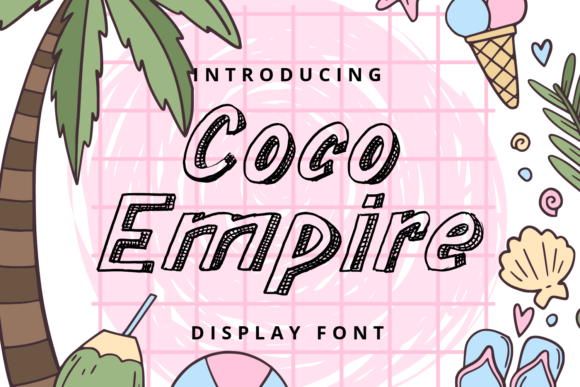
Unleash Your Creativity with Coco Empire Font
Enter the Coco Empire Font, a casual and cool 3D display font that’s about to become your new best friend. Its natural and unique style makes it incredibly fitting to a large pool of designs, from bold headlines to creative typography. The Coco Empire Font is more than just a font – it’s a key to unlocking endless design possibilities.
- Font Family: Coco Empire Font is a unique and elegant sans-serif font family designed for various applications.
- Unique Characteristics: Features a distinctive blend of modern and vintage elements, with a touch of elegance and sophistication.
Coco Empire Font Review
I recently had the chance to work with the Coco Empire Font, and I must say it’s a unique and stylish addition to any design project. ✨ One of the things that stands out about this font is its versatility – it works well in both bold and playful contexts, making it perfect for a wide range of applications.
Some of the key features that I appreciate about the Coco Empire Font include:
- A wide range of weights and styles, allowing for endless customization options
- Excellent legibility, even at smaller font sizes
- A unique, hand-crafted feel that adds a touch of personality to any design
However, I do have a few concerns about the Coco Empire Font. ⚠️ One of the main limitations is that it can be a bit difficult to read in certain situations – for example, when used in long blocks of text or at very small font sizes. Additionally, the font may not be the best choice for formal or traditional designs, as its playful vibe may not fit with the tone.
Overall, I think the Coco Empire Font is a solid choice for designers who want to add a bit of whimsy and personality to their work. While it may have some limitations, its unique style and versatility make it a valuable addition to any design toolkit.
The Coco Empire font is ideal for creative projects, such as:
- Brand logos and identities
- Graphic designs and illustrations
- Invitations and event materials
For optimal results, use the Coco Empire font in combination with bold, bright colors and playful graphics.